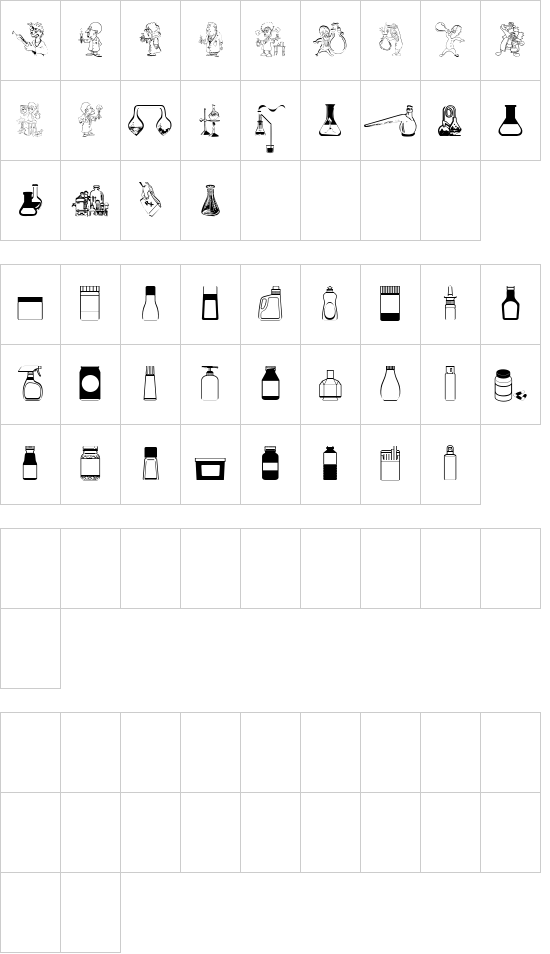
Lab Bats
Lab Bats is a dingbats face packed with science and laboratory themed symbols, from beakers and flasks to assorted illustrated icons. Each key delivers a piece of lab-themed spot art rather than a letter, ready to drop into a layout that needs a scientific touch.